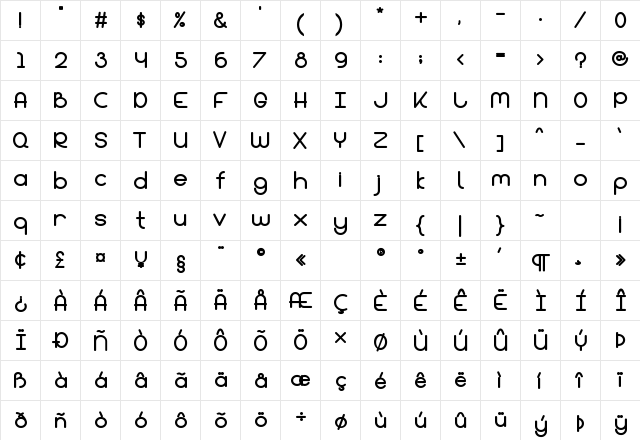
Bandar Bold
Design Context for Bandar Typeface
Bandar offers clean, dependable letterforms without strong stylistic allegiance, making it a practical choice for designers who need flexibility. Its bold stroke weight gives it real presence on the page.